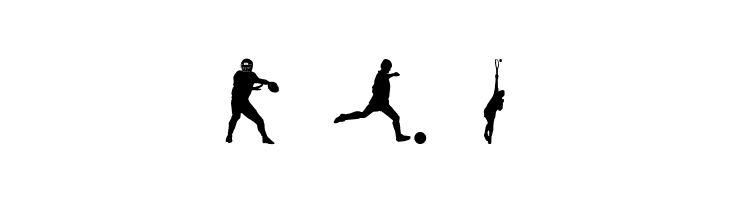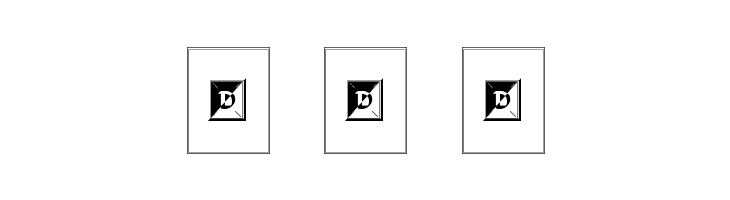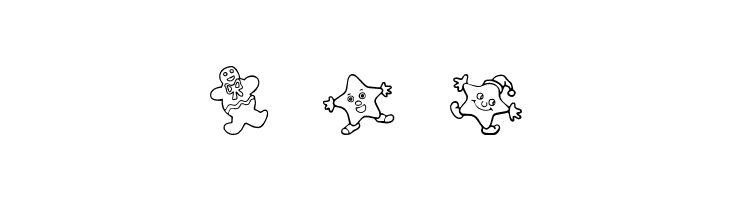
• SilhousKette
A decorative silhouette font using human figures for each character.
• Idols
A decorative font featuring intricate tribal-inspired symbols and figures.
• LogoModels
A whimsical and artistic font with characters depicted as reclining figures.
• LogoModelsBowToBoss
Minimalist cartoon figures form each glyph in a playful, illustrative style.
• PersonaRondo
A playful, hand-drawn font made of stick-figure characters.
• LosAngeles-Bold
Whimsical, character-based illustrative font with abstract human-like figures.
• Kidsfontone
A playful, hand-drawn font featuring whimsical stick figures and doodles.
• OhLauri
A playful, illustrative font made of quirky hand-drawn figures.
• Pinocchionish
A quirky, illustrative display font with stick-figure characters.
• PeopleAndOthers
A collection of silhouette images featuring people and artistic figures.
• SometimesSmiley
Hand-drawn stick-figure font with expressive, emotive characters.
• SilhousOldfashion
A decorative font with intricate silhouette scenes and figures.
• ManFont
An artistic font where letters are formed by human figures in various poses.
• Textan - Piple
A playful font with characters as geometric human figures and buildings.
• Scurile
An artistic display font featuring abstract human figures and faces in each character.
• MythosChina
Ornate, illustrative font featuring East Asian mythological figures.
• HeadsForYourAds
Whimsical illustrated font featuring diverse character heads and figures.
• Kampfsport
A decorative font with martial arts figures representing each character.
• NudesOne
An artistic font featuring abstract human figures as characters.
• NudesTwo
Abstract font made from human figure silhouettes in various poses.
• TopNotches
Whimsical stick-figure font with expressive, hand-drawn characters.